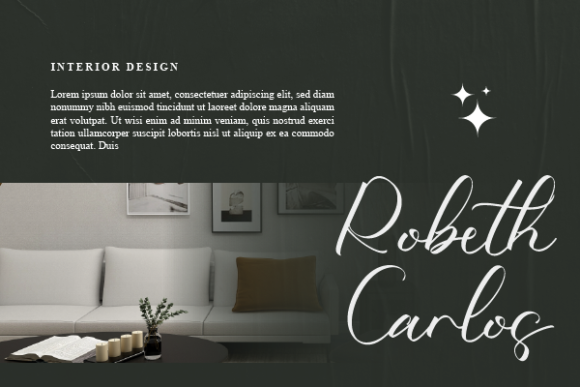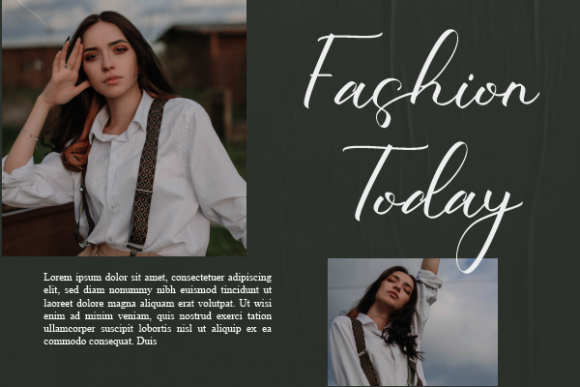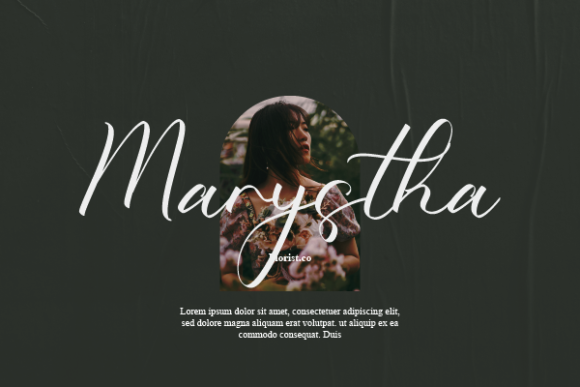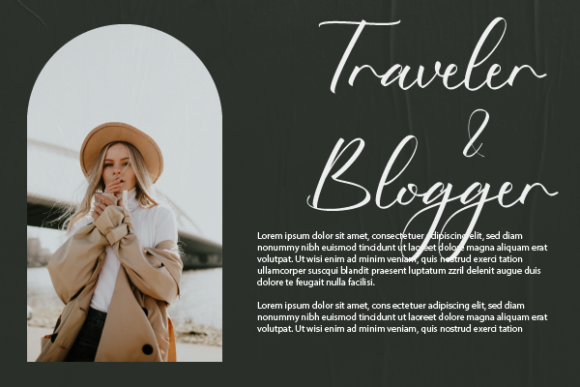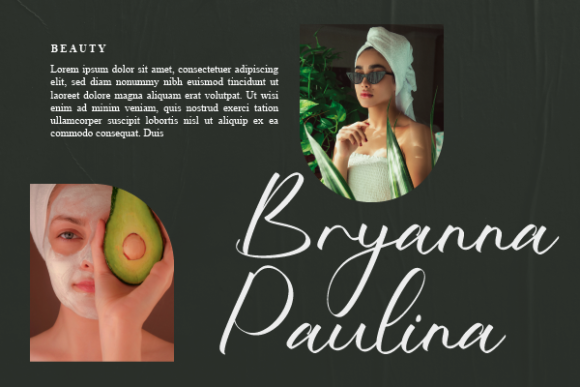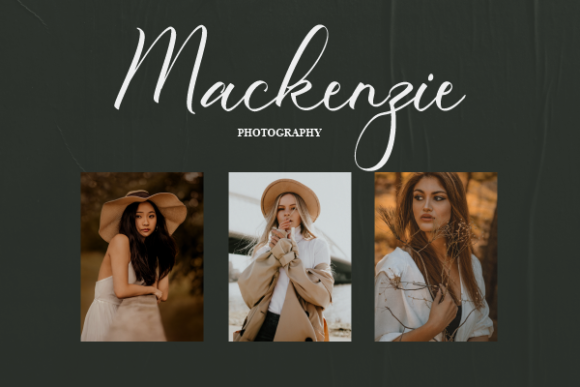
Introduction to Skinner Churchil Font
Have you ever found yourself stuck in a design rut, searching for the perfect font to elevate your creative project? I know I have! It was on one such occasion that I stumbled upon the lovely Skinner Churchil Font, and I knew I had to share it with fellow designers.
This elegant script font has been a game-changer for me, and I’m excited to introduce you to its charms. With its high-quality design and transparent background, it’s perfect for product packaging, branding projects, magazine covers, and social media. The best part? It’s available for free download, making it an invaluable resource for designers on a budget.
Whether you’re working on a wedding invitation, a logo design, or simply want to add some flair to your social media posts, Skinner Churchil Font is an excellent choice. Its chic and sophisticated vibe is sure to impress, and its versatility makes it a valuable addition to any design resource library.
Key Features of Skinner Churchil Font
- Features a unique, elegant design with transparent background, ideal for various applications.
- Designed with a high resolution, making it suitable for print and digital use.
- Available in a single weight, making it easy to incorporate into designs without worrying about font pairing.
- Perfect for use in logos, headings, and body text, adding a touch of sophistication to any design project.
Honest Review: Skinner Churchil Font
I recently stumbled upon the Skinner Churchil Font, and I’m excited to share my thoughts on this design resource. As a designer, I appreciate high-quality fonts that can elevate my creative projects. The Skinner Churchil Font is a solid addition to any design arsenal.
- ✨ Elegant and sophisticated design aesthetic, perfect for corporate or luxury branding
- ✨ Clean lines and precise typography make it ideal for body text and headings
- ✨ Works well with transparent backgrounds, allowing for a sleek and modern look
However, I do have a few reservations:
- ⚠️ Limited character set and language support, which may be a concern for multilingual projects
- ⚠️ Not ideal for display use, as the font may appear too subtle or understated
Overall, I’m impressed with the Skinner Churchil Font. Its high-quality design and free download make it a great resource for designers. While it may have some limitations, I believe it’s a valuable addition to any design library.
The Skinner Churchil Font is a versatile and elegant design resource ideal for creative projects. It offers a high-quality, free download that can be used across various platforms.
For optimal results, use the Skinner Churchil Font on a transparent background to achieve a clean and elegant look. You can also experiment with different font sizes and colors to create a unique design.
The Skinner Churchil Font is suitable for various creative projects, including logos, business cards, brochures, and websites. Its elegant design makes it an excellent choice for formal and professional projects.